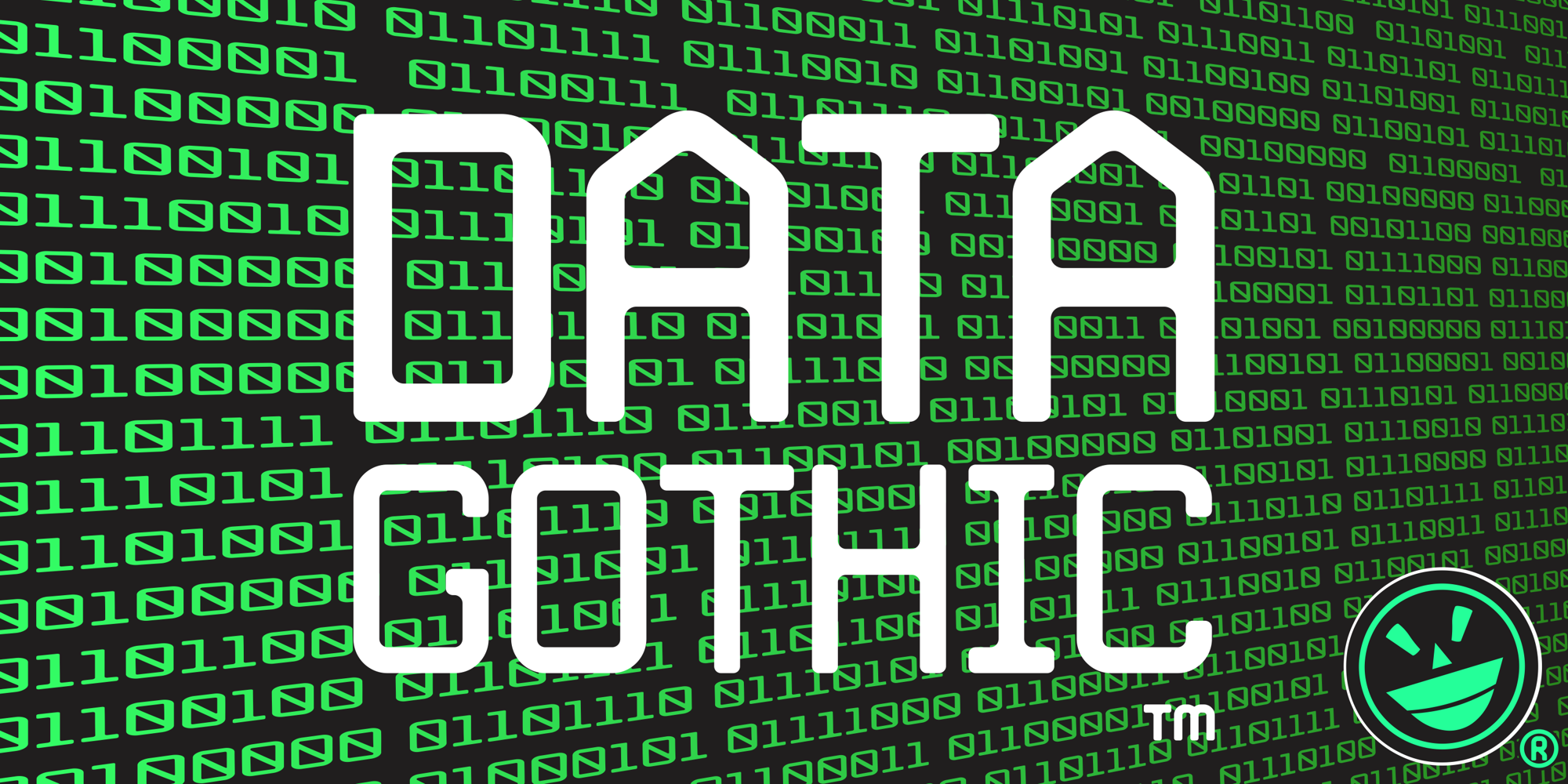
JLS Data Gothic Font demonstrates exceptional versatility across numerous design applications including data visualization interfaces, technical documentation, scientific research presentations, financial reporting systems, analytics dashboard design, database management communications, software engineering materials, and information technology branding. Its precise character makes it particularly effective for projects requiring data clarity while maintaining professional credibility, ensuring your designs convey technical expertise and analytical reliability across both digital platforms and technical print materials.
What makes JLS Data Gothic Font truly exciting is its innovative approach to typography that perfectly captures the essence of data analysis and information processing through carefully engineered letterforms. The font features precisely crafted characters that incorporate subtle technical elements and analytical proportions that create striking information clarity while preserving optimal communication effectiveness. Its distinctive character construction combines data science inspiration with modern functionality, creating text that feels both technically sophisticated and professionally dependable. The font's optimized spacing and structured character relationships ensure superior performance across various data applications while maintaining the characteristic precision that defines its analytical personality.
JLS Data Gothic Font offers a comprehensive type family designed to support diverse technical and data-focused design requirements. The family typically includes light, regular, medium, bold, and black weights, along with corresponding condensed variations that provide complete flexibility for information-dense typography compositions. Many versions feature extended character sets with technical symbols, data ornaments, and specialized glyphs that enhance authentic analytical aesthetic applications.
The JLS Data Gothic Font Free Download represents outstanding value for designers working on technology-focused and data-driven projects across multiple sectors. Whether developing analytics platform branding, creating technical documentation materials, designing database interface communications, or producing scientific research content, this font delivers consistent precision and memorable technical appeal. Its data characteristics make it particularly effective for industries including information technology, data analytics, scientific research, and financial services sectors seeking to communicate technical expertise and analytical accuracy.
For maximum effectiveness, JLS Data Gothic Font combines excellently with clean, systematic design elements and technical color schemes that reinforce its data message. Its precise presence excels in headline applications while maintaining exceptional performance in technical documentation contexts. The font's analytical sophistication and data appeal make it an essential tool for creating authoritative communications that resonate with audiences expecting technical competence and analytical excellence.